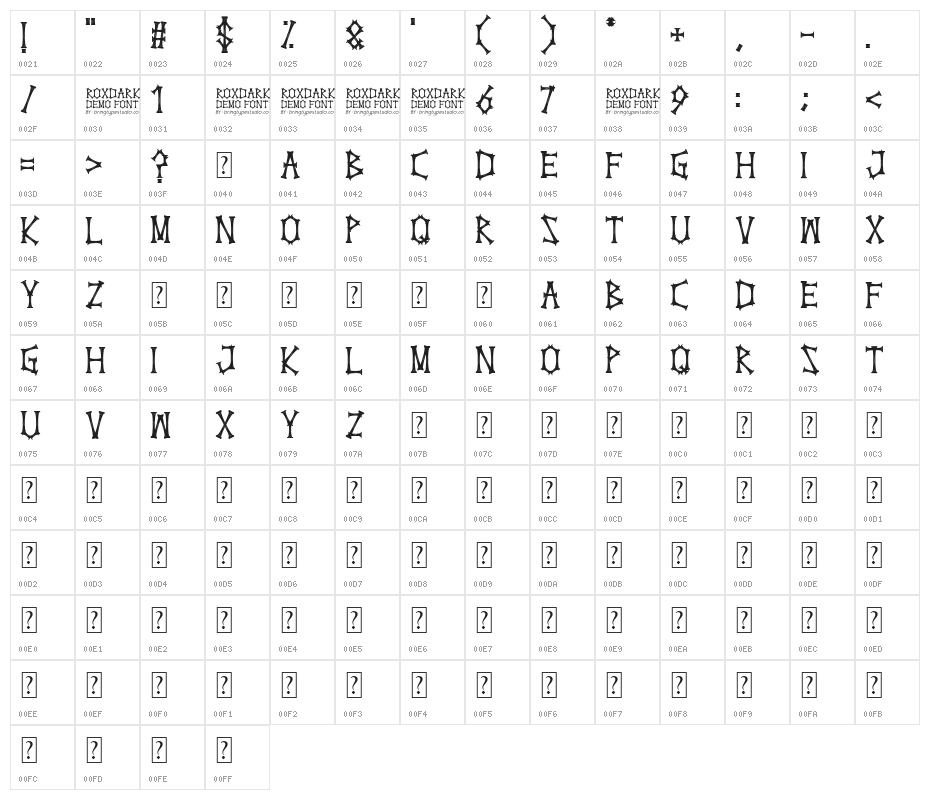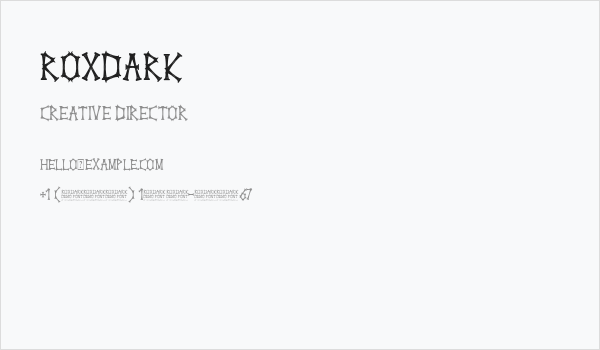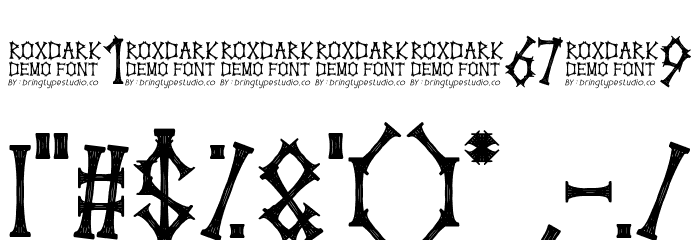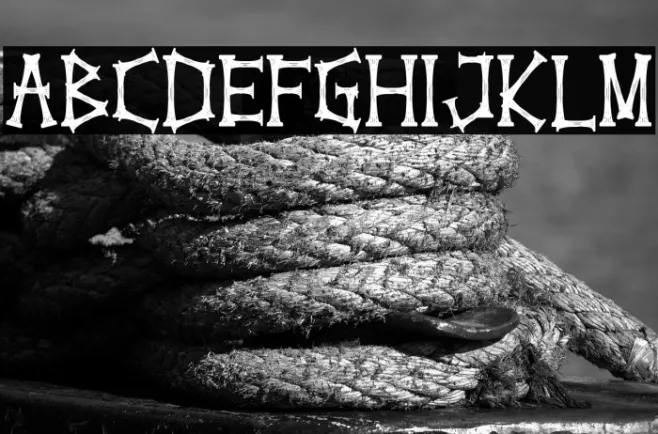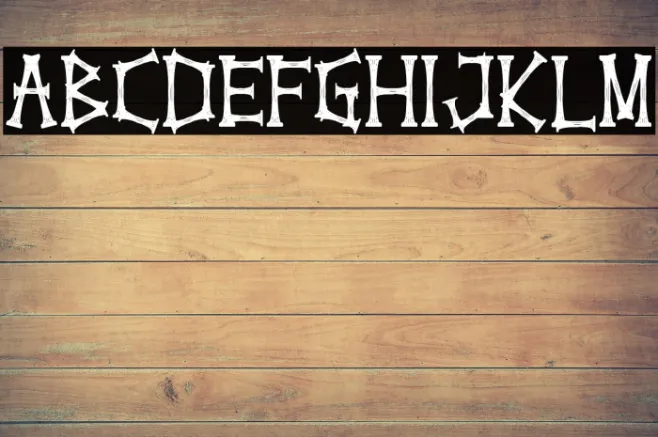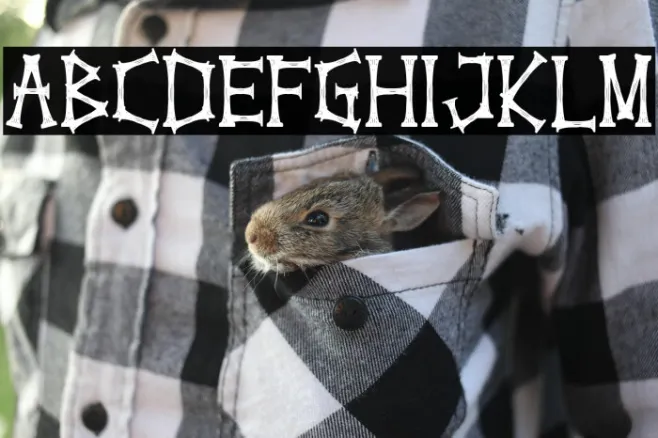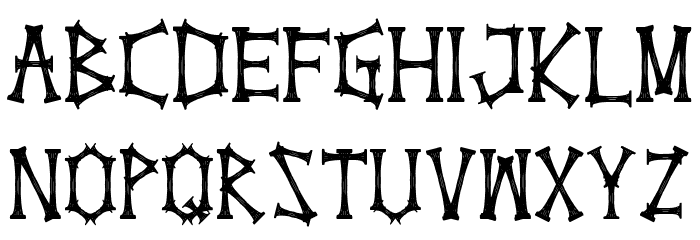
ROXDARK Font
ROXDARK Description
This font features a bold, edgy design with sharp, angular lines and a gothic influence. The characters are heavily stylized, with pointed serifs and a slightly distressed appearance, giving it a dark, mysterious feel. The uppercase letters are particularly striking, with unique embellishments that make each character stand out. The numerals and special characters maintain the same dramatic style, ensuring consistency across all text. This font is ideal for projects that require a bold, attention-grabbing typeface with a touch of the macabre.
| Overall Style | Gothic, Edgy, Dramatic |
| Proposed Projects | Perfect for horror-themed designs, album covers, posters, and branding that requires a dramatic and edgy look. |